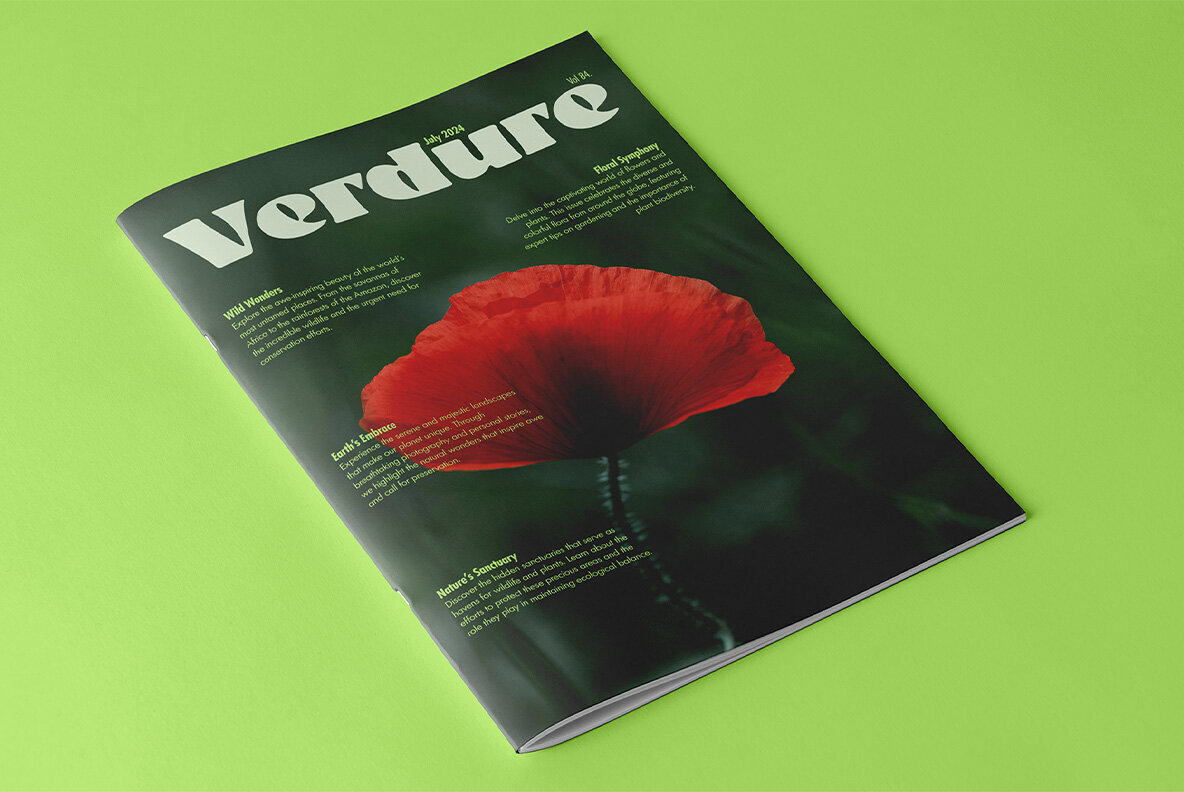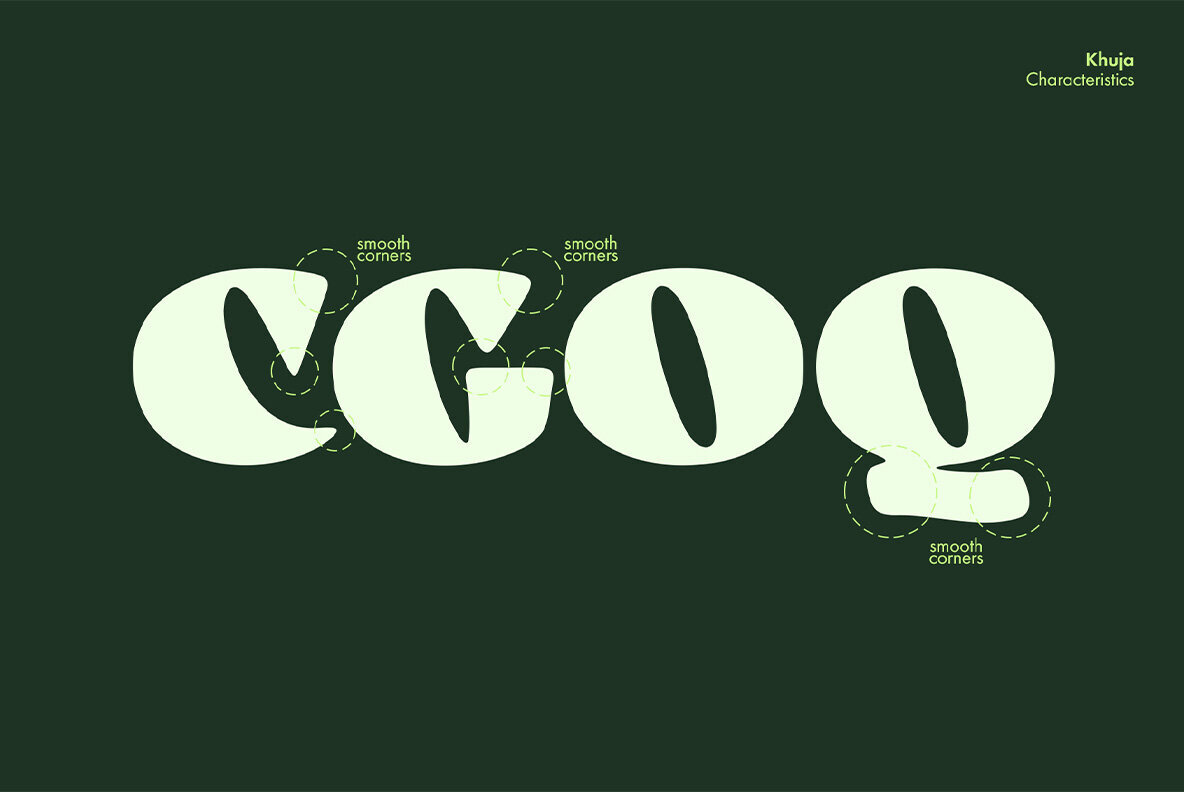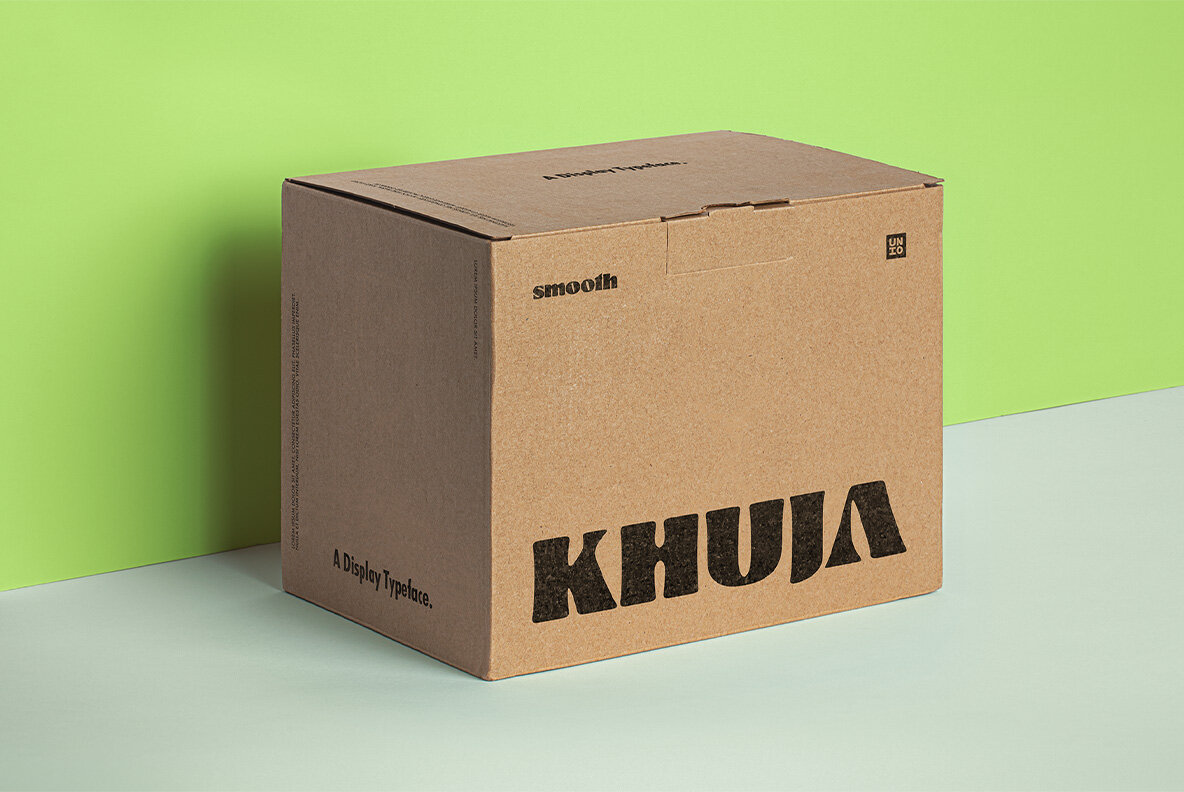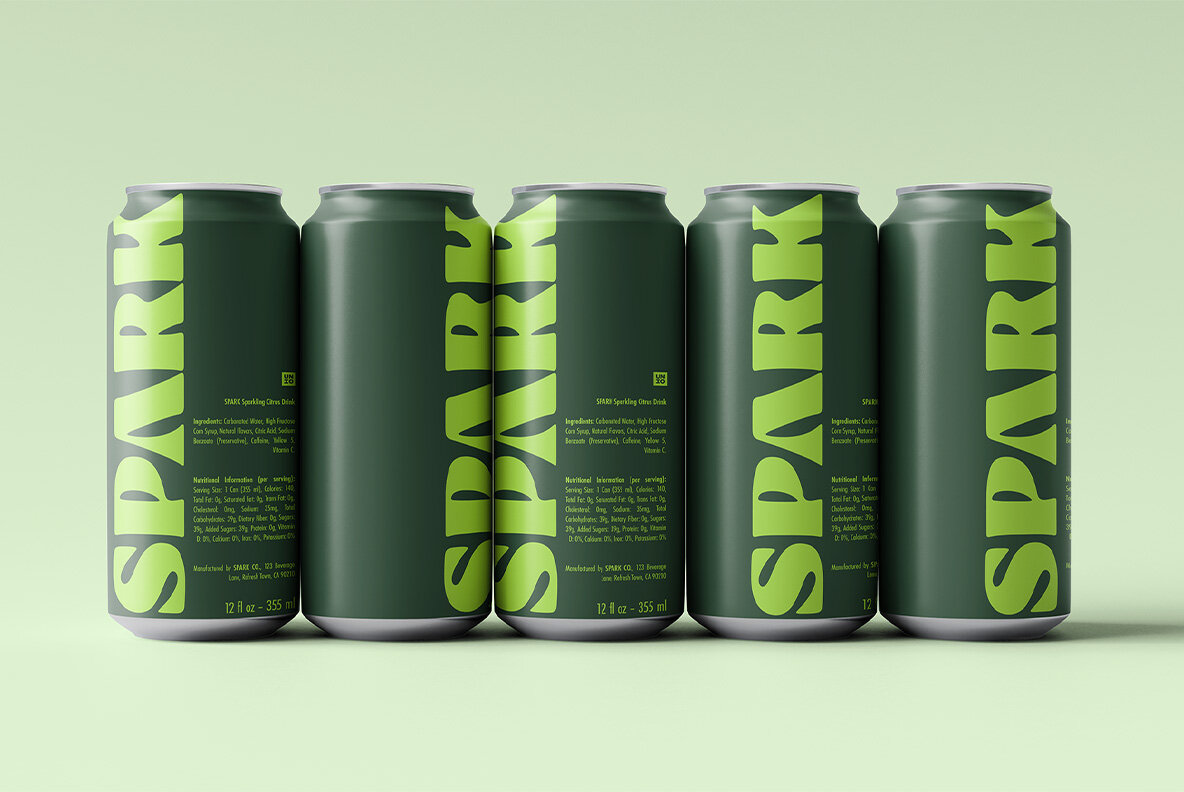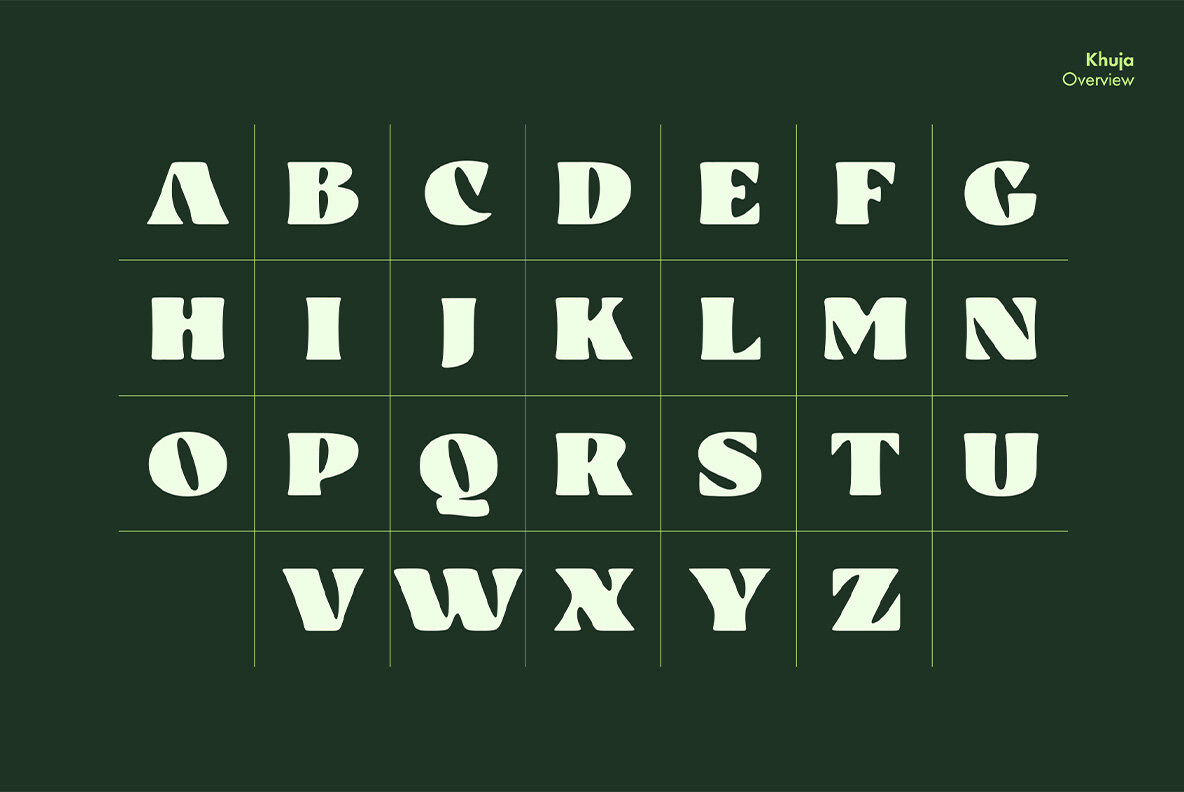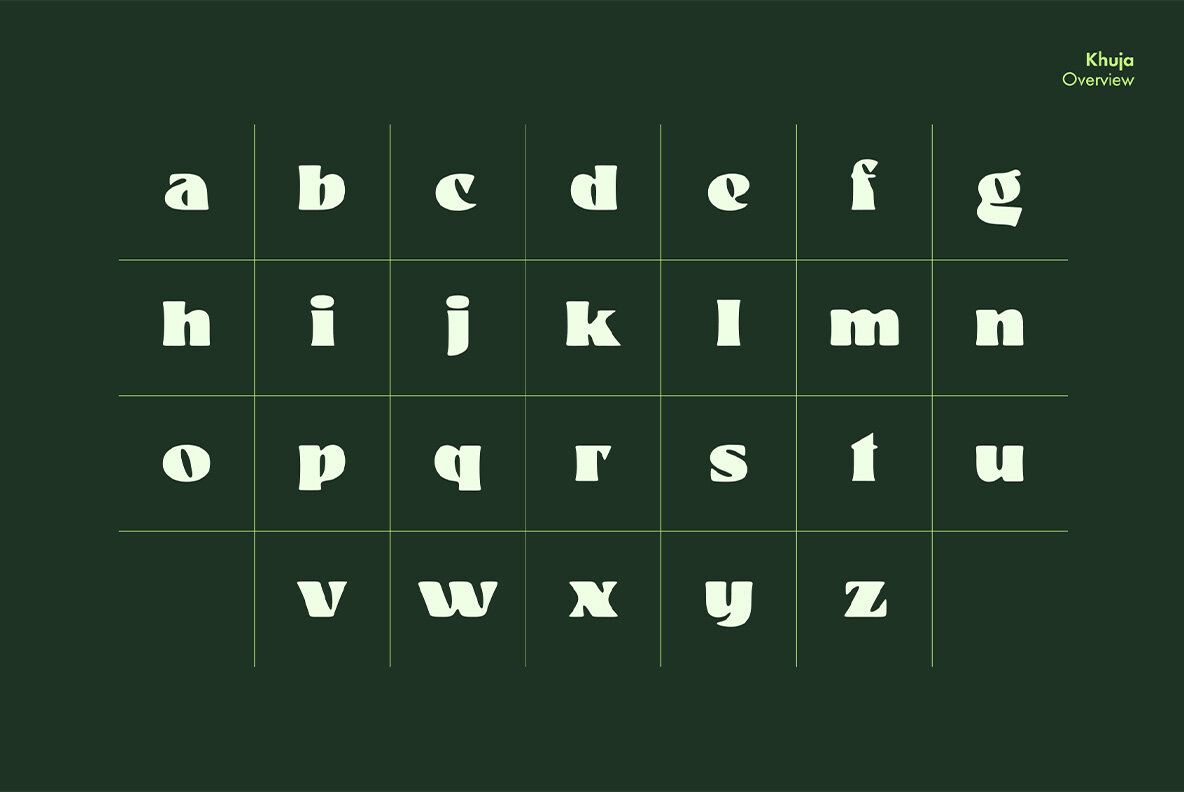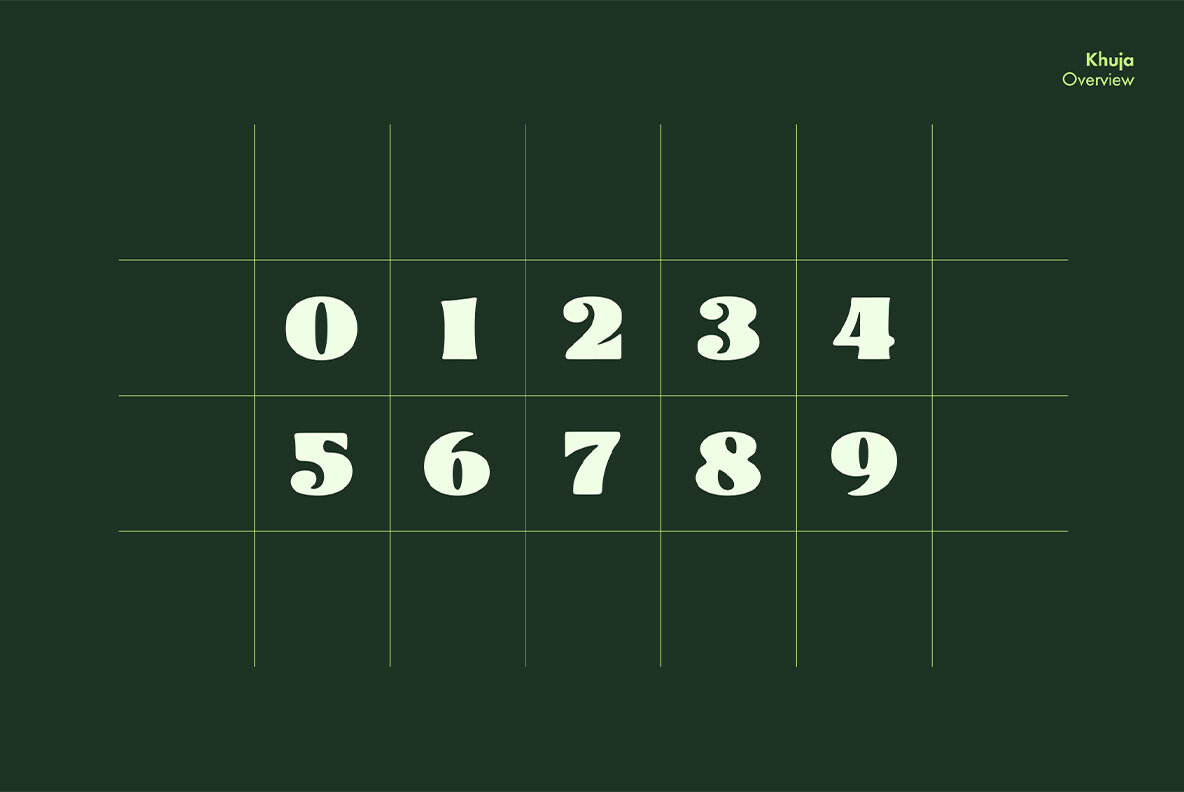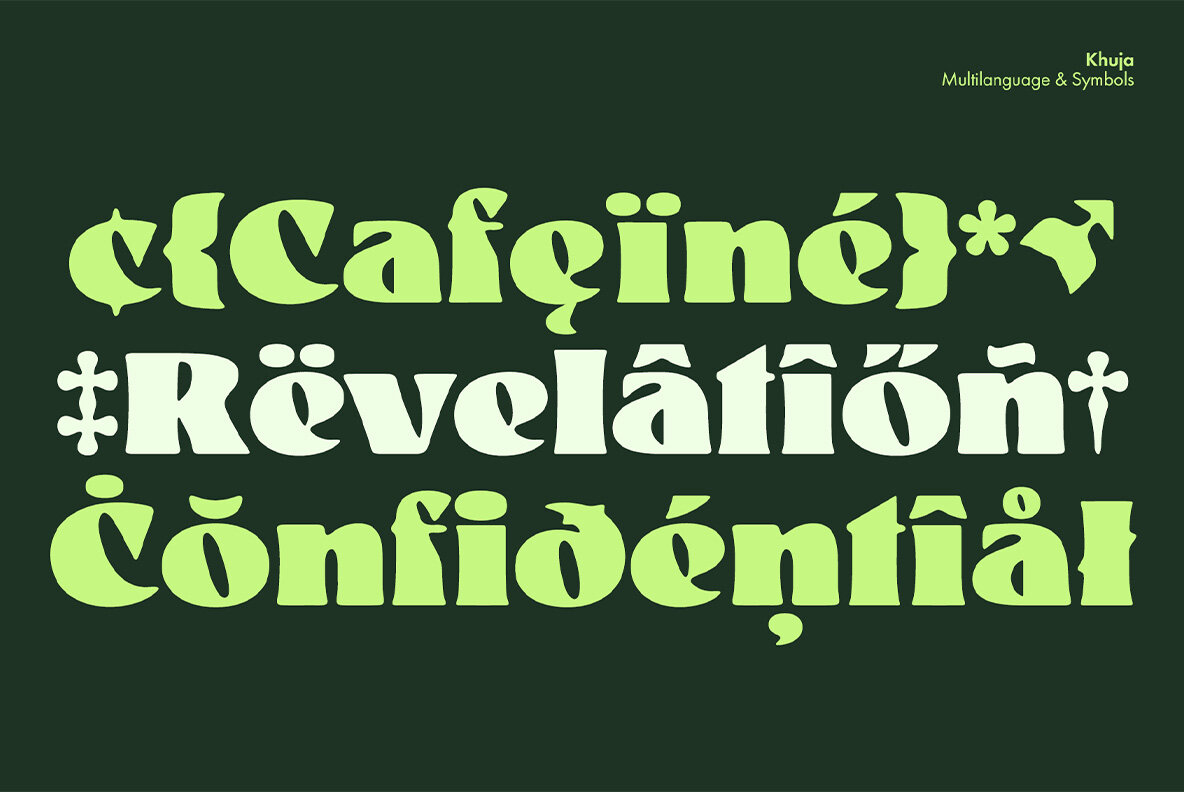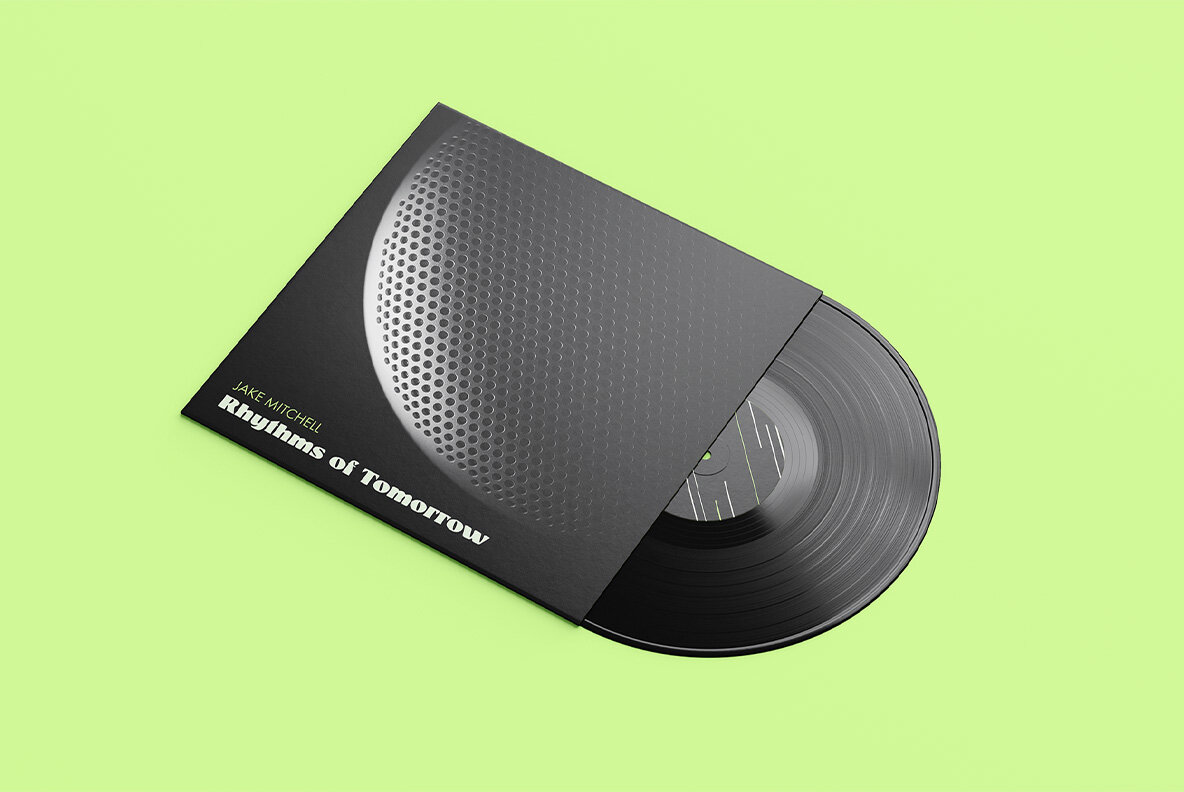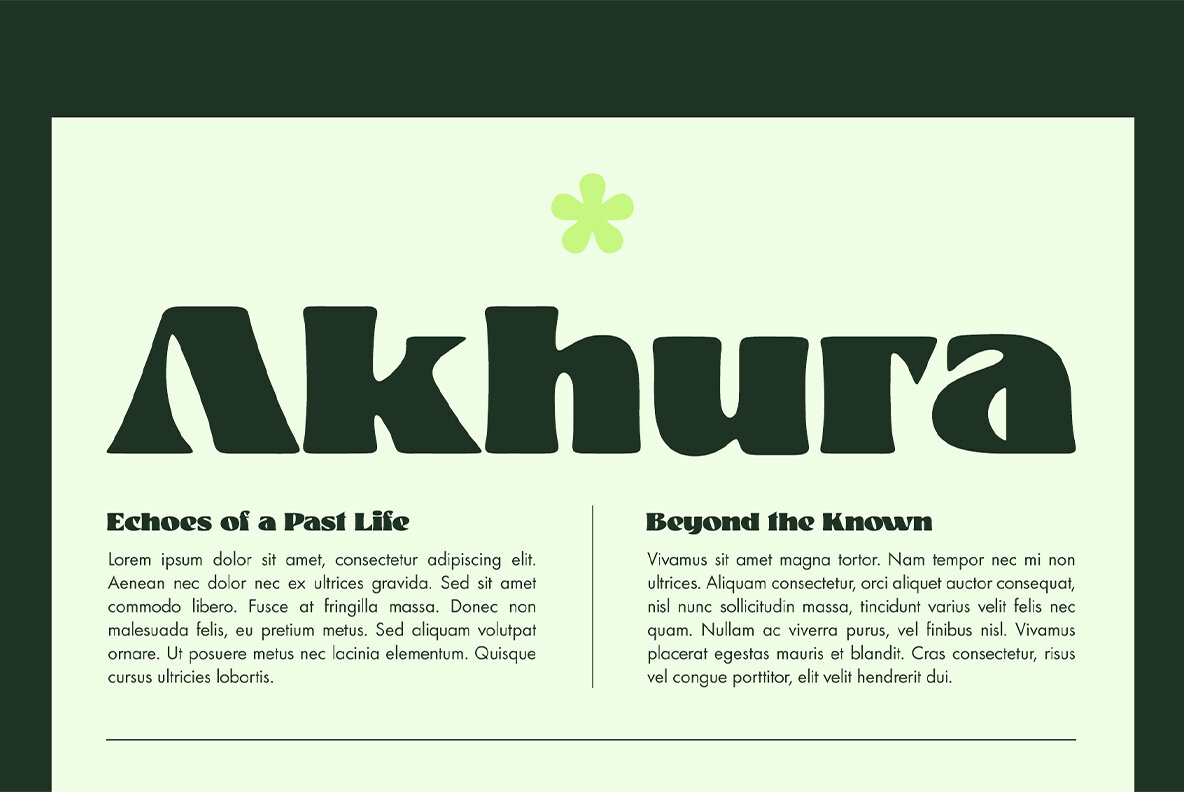
Khuja Smooth Font
Introducing Khuja Smooth, a versatile display typeface that blends organic, flowing curves with bold, geometric shapes. This softened version of Khuja retains its unique charm while being more adaptable for various contexts, taking the typeface less seriously and allowing for greater flexibility. Khuja Smooth is designed to provide a visually appealing yet relaxed look, making it suitable for a wider range of applications. Its meticulously crafted letters ensure cohesion and legibility, making your text stand out without being overly formal. Perfect for both print and digital projects, Khuja Smooth excels in branding, magazines, web design, broadcasting, packaging, apparel, and more. Its eye-catching design ensures that your headlines and text elements are not just readable but truly memorable. Elevate your designs and make your messages impactful with Khuja Smooth – the perfect font to give your headlines and content a smooth, irresistible appeal! Typeface Specifications: - Included: Display Font, matching oblique - Global Support: Includes 398 glyphs for a broad range of languages.